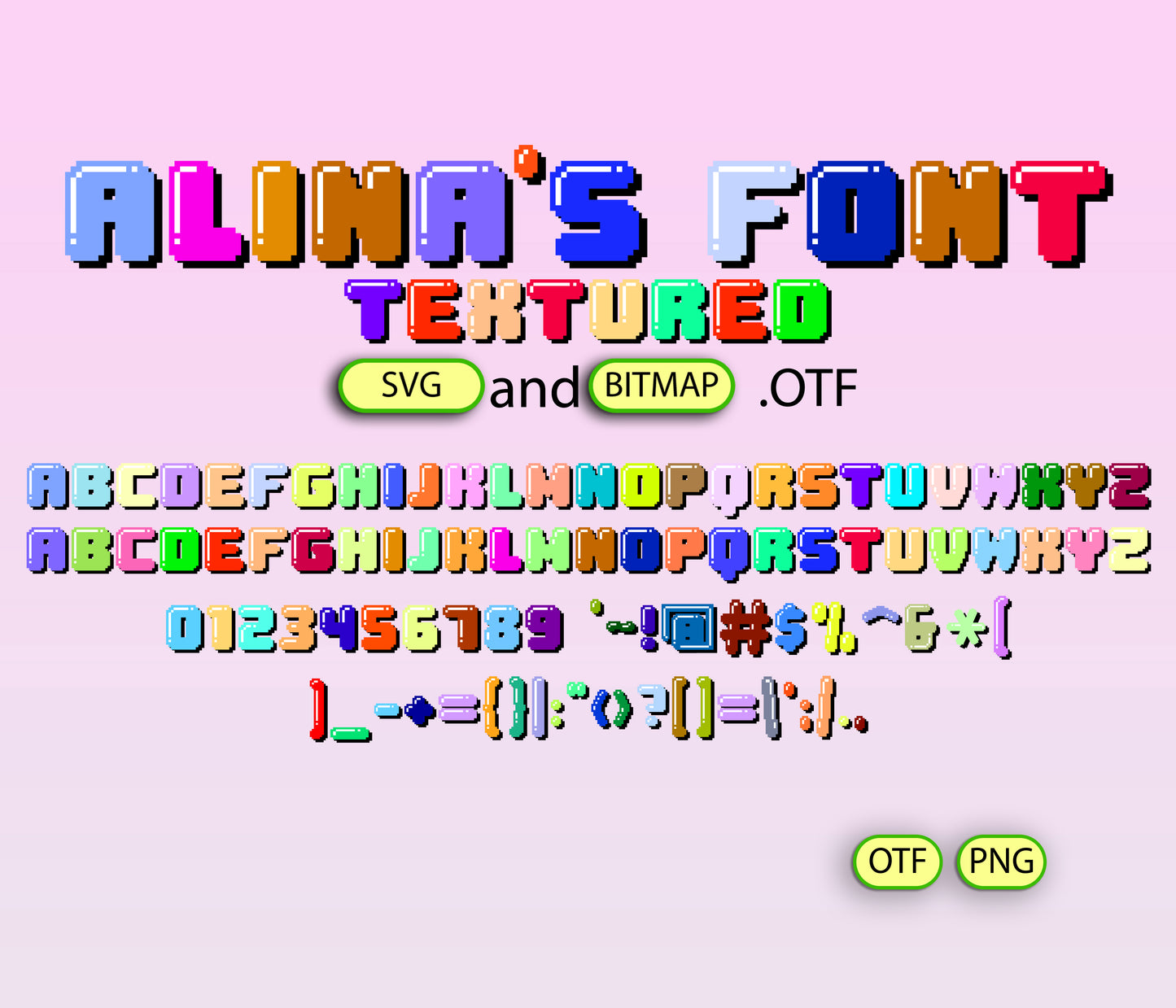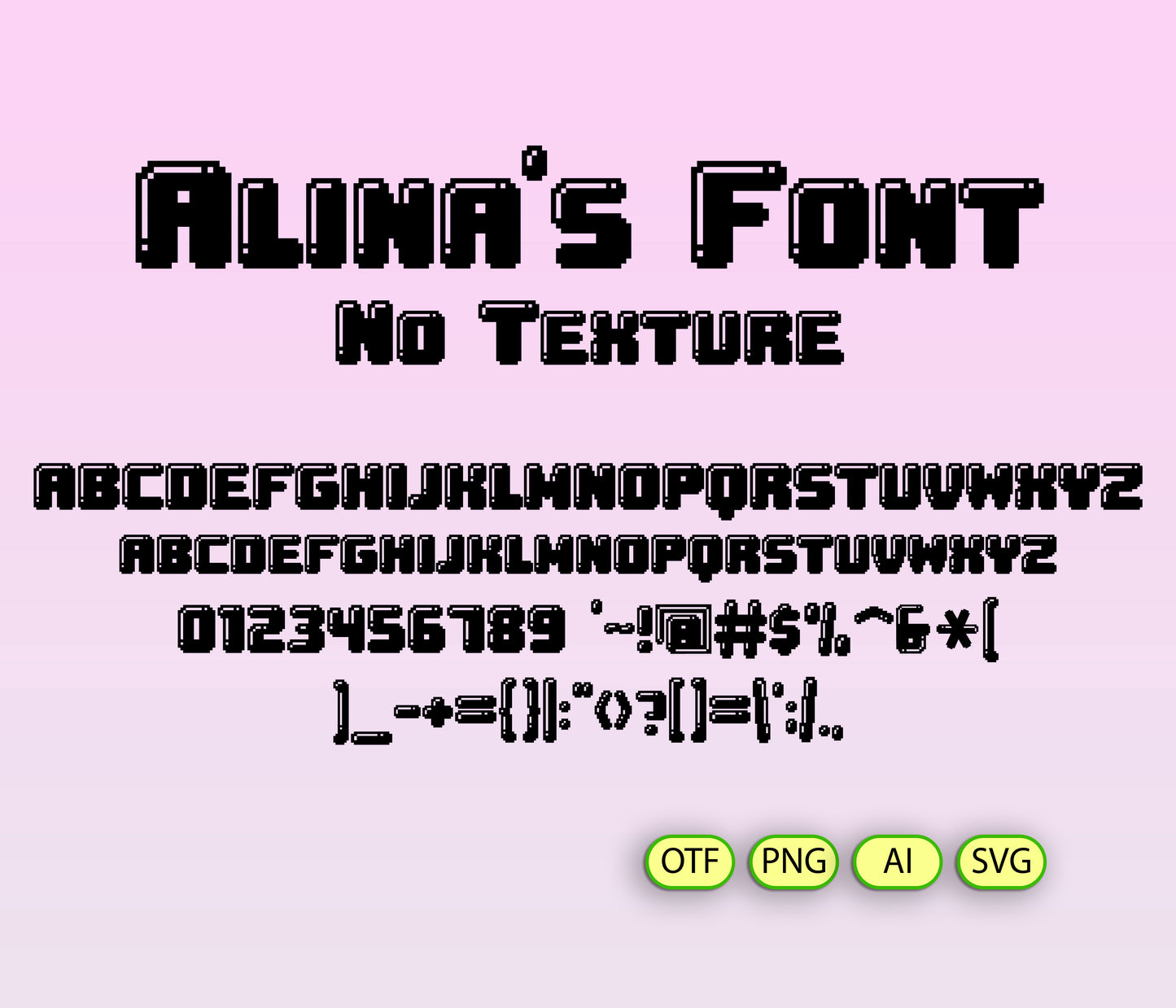
Colorful Cartoon World Font Textured
Dive into a colorful and imaginative universe with our custom-designed font, inspired by a quirky and innovative animated series. This font captures the eclectic, vibrant essence of a show characterized by its unique blend of surreal humor and creative animation styles. Each letter and symbol reflects a playful, unpredictable, and visually rich world of extraordinary characters in a lively town.
What Font is Colorful Cartoon World Font?
Envision a typeface that encapsulates a dynamic, fun-loving, and creative spirit. Our font is meticulously designed to mirror whimsical and diverse aesthetics, combining elements of cartoonish charm with a modern twist. It includes a comprehensive character set, with alphabets, numbers, and special symbols, providing a versatile tool for various creative projects that aim to capture distinctive flair and fun.
What Can You Do With Colorful Cartoon World Font?
- Textured and Non-Textured Variants: Choose between a playful textured style or a clean, non-textured version for diverse creative needs.
- Extensive Character Set: Offers a wide range of characters for comprehensive design options.
The Colorful Cartoon World-inspired font is more than just a typeface; it's an invitation to a whimsical and imaginative animated universe.